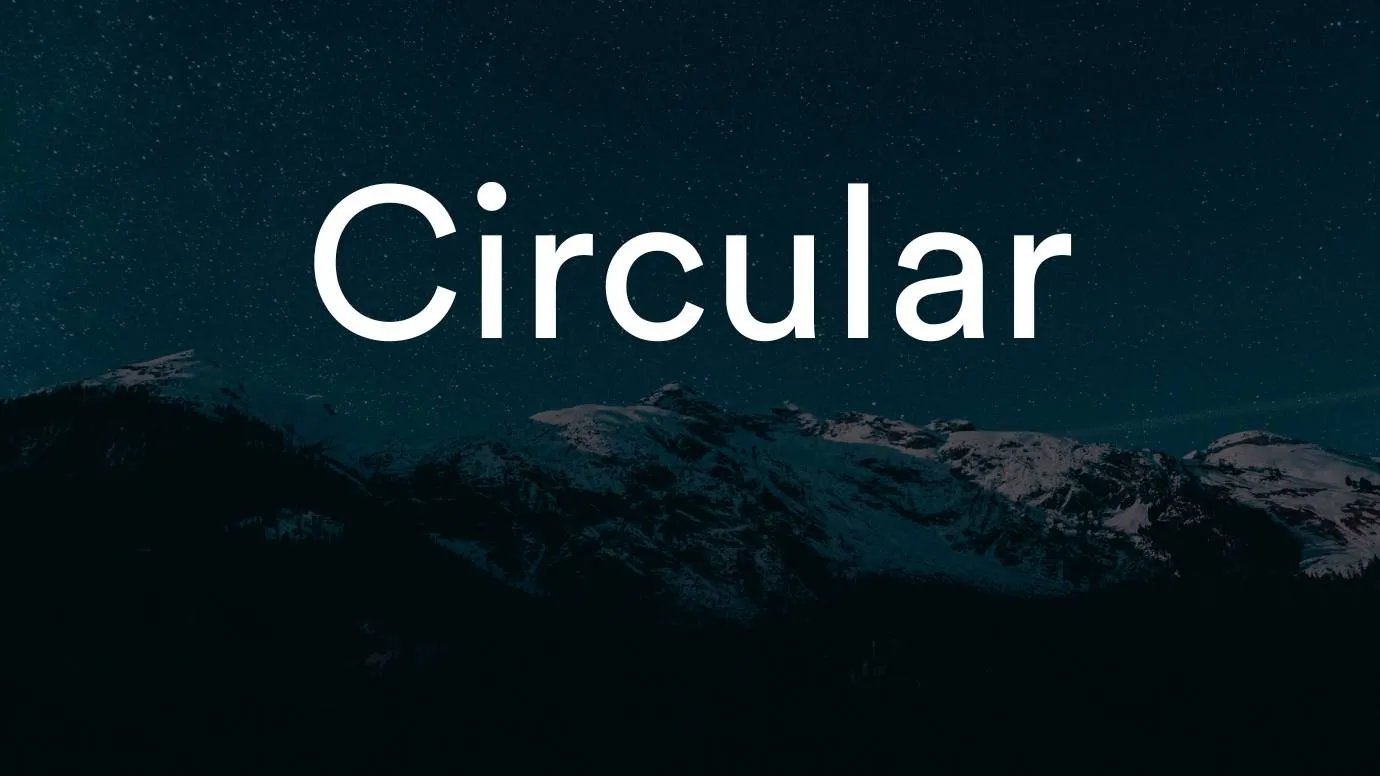
Circular is a geometric Sans-serif typeface family that has magnificent styles and 4 weights including Bold, Medium, Book, and Black and each has its matching Italics.
There are many similar fonts that you can find in Google fonts but Montserrat font is the closest font in Google fonts because they are the same in their weights, widths, and X-height.
Circular Font Family
DesignerLaurenz Brunner